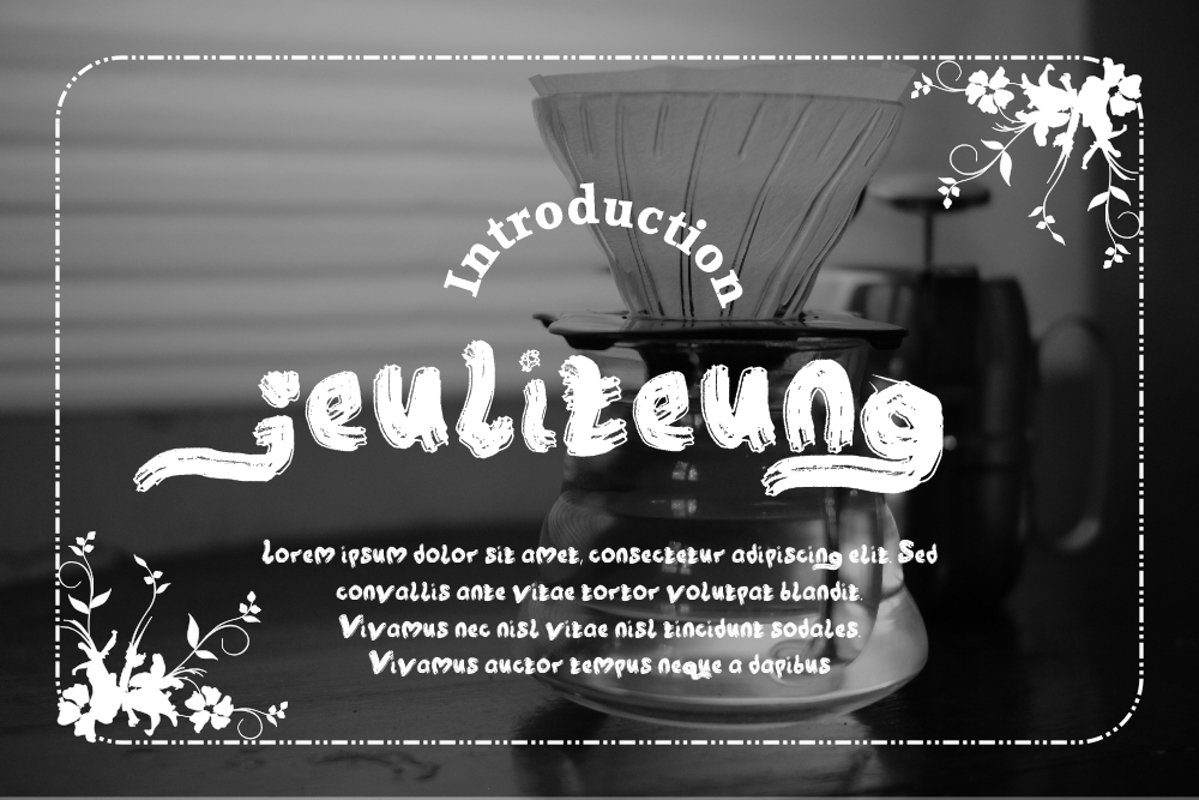
jeuliteung
jeuliteung Typeface is a brush type. It suitable for any vintage type needs and more Happy creating.Very suitable for you who do exploration